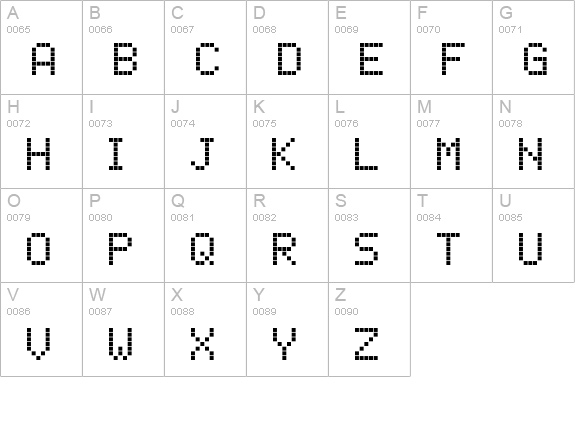
Introducing the LCD Phone Font, a stunning typeface that will mesmerize and captivate with its sleek and modern design. This font is the perfect blend of classic and contemporary, making it ideal for a wide range of projects and creative endeavors. With its clean lines and sharp edges, the LCD Phone Font exudes a sense of professionalism and sophistication. Whether you're designing a website, creating a logo, or crafting a digital presentation, this font will elevate your work to new heights. But the best part? The LCD Phone Font is completely free! That's right, you can download this incredible font at absolutely no cost. Simply head over to FontsMarket.com and unlock this treasure trove of typographic excellence. Not only does the LCD Phone Font offer exceptional aesthetics, but it also boasts exceptional versatility. With a wide range of glyph variations and character sets, this font can cater to any design need. From bold headlines to subtle subheadings, the LCD Phone Font can do it all. Say goodbye to boring and generic fonts, and embrace the LCD Phone Font. With its sleek design and high-quality craftsmanship, this font is sure to make a lasting impression on your audience. So why wait? Download the LCD Phone Font for free at FontsMarket.com and take your projects to the next level.